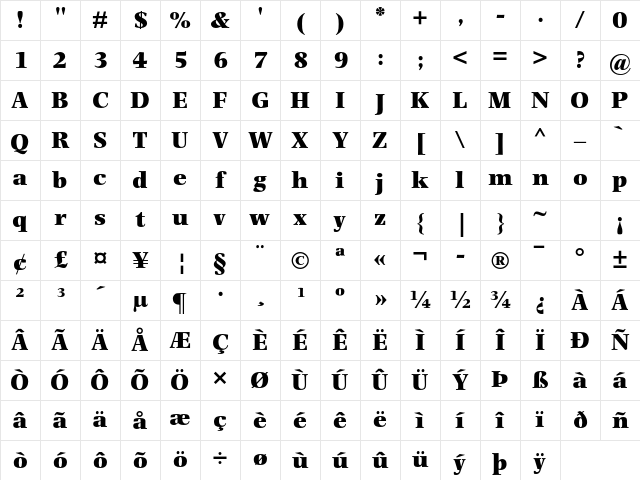
Photina MT Std Ultra Bold
Style: Ultra Bold
Designer: Jos￿ Mendoza y Almeida
Design Context for Photina MT Std
Photina MT Std is a composed and adaptable typeface that performs quietly and consistently across a wide range of design contexts. Its bold stroke weight gives it real presence on the page.